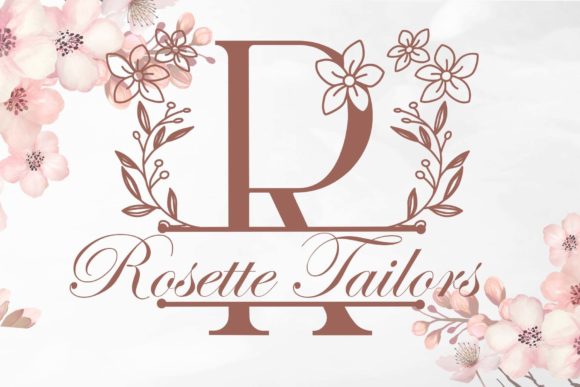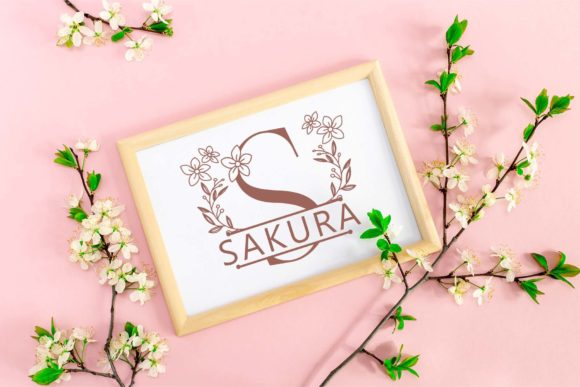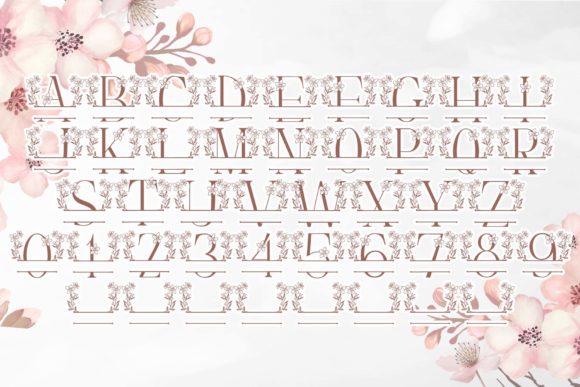
Pink Floral Line Monogram Font – Free Download
Introduction to Pink Floral Line Monogram Font
Pink Floral Line Monogram is a dainty and unique decorative font.
Add this romantic and lovely looking font to each of your love letters, wedding invitations or favorite design ideas, and you will be astounded by the outcome .
Key Features of Pink Floral Line Monogram Font
Why Choose Pink Floral Line Monogram Font?